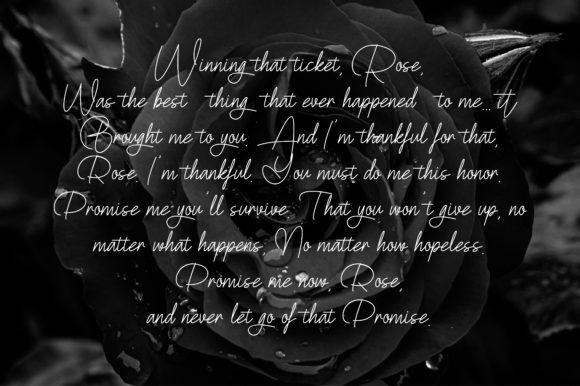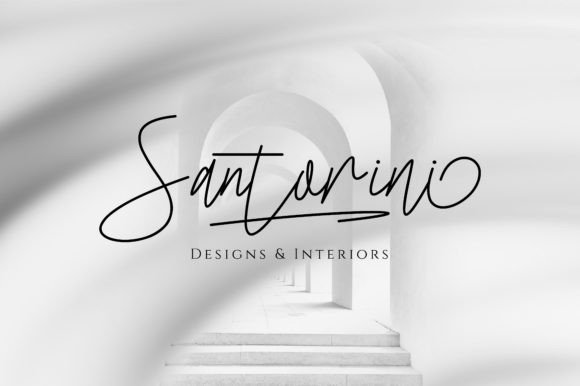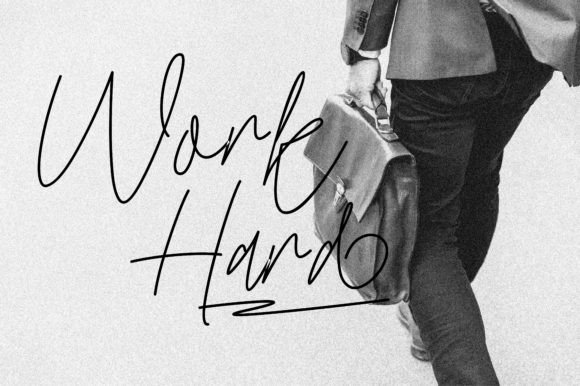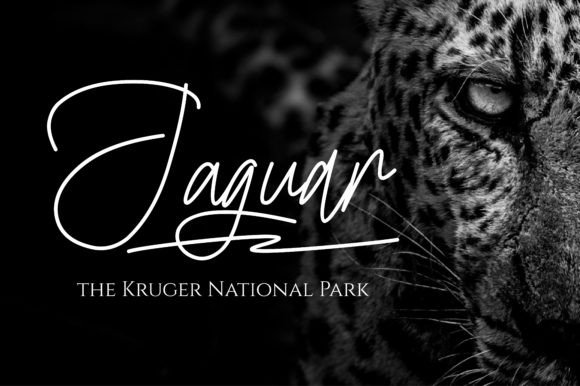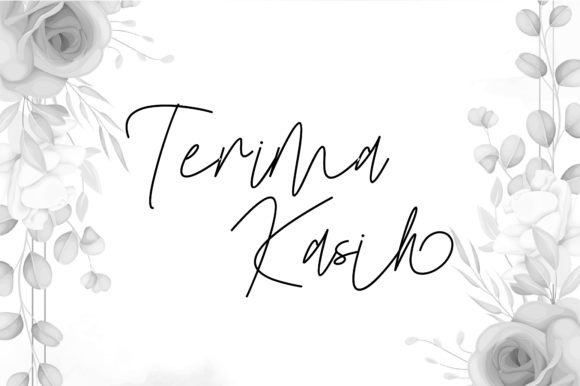
Unveiling Australia Font: Elevate Your Designs with a Touch of Elegance
Have you ever been in the midst of working on a design project, only to find yourself stuck on one crucial element: the font? I recall a particularly frustrating experience while crafting a wedding invitation for a client. The design was almost perfect, but the font just didn’t capture the romantic essence I was aiming for. That’s when I stumbled upon the Australia Font, a game-changer that has since become a staple in my design toolkit.
A Closer Look: What Makes Australia Font Special
The Australia Font is a contemporary and chic script design that carries the intrigue of an Australian moniker. Its fluid, polished appearance makes it a versatile tool for a myriad of applications, from logos and theatrical posters to romantic wedding invitations, engaging blog posts, vibrant social media content, and inspirational quotes.
Here’s what I love about the Australia Font:
- ✨ Fluid and polished script design: The font’s smooth lines and elegant curves make it perfect for designs that require a touch of sophistication.
- ✅ Multipurpose: Whether you’re working on a logo, a poster, or social media content, this font adapts seamlessly.
- 🔥 Titling and swash aspects: These features beautifully elevate any design project, adding a touch of flair and personality.
While the Australia Font is incredibly versatile, there are a few minor considerations:
- 🤔 Legibility at small sizes: Like many script fonts, it may lose some legibility when used at very small sizes. It’s best used at larger sizes or for titles and headings.
- ⚠️ Overuse of swashes: While the swash features are beautiful, overusing them can make the text look cluttered. Balance is key.
The Australia Font was inspired by the country’s rugged yet elegant landscape. The designer aimed to capture the essence of Australia’s unique culture and natural beauty in a typography that exudes sophistication and style.
Q: What makes the Australia Font unique?
A: The Australia Font stands out with its fluid, polished script design and versatile OpenType features, making it perfect for a wide range of design applications.
Q: Is the Australia Font suitable for body text?
A: While the Australia Font is stunning for titles and headings, it’s best used sparingly for body text due to its script nature and potential legibility issues at small sizes.